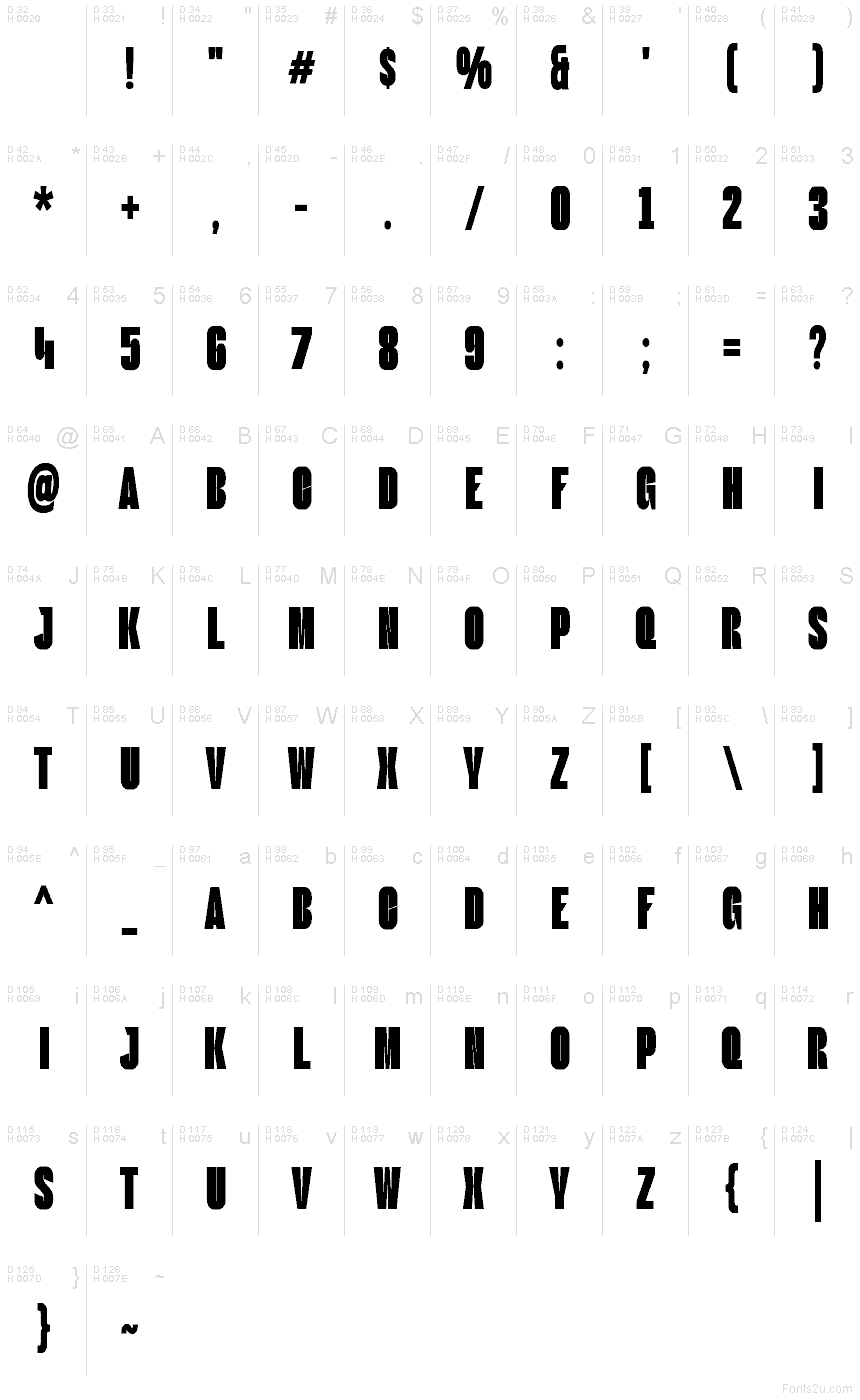
Emerged
Emerged font by Graphicxell is a free ultra-bold condensed sans font. It stands out with deep vertical cuts that slice through its heavy blocks, creating a sharp, industrial rhythm and a punchy cadence across the line. The forms are tightly packed yet readable, with crisp edges and confident mass—like headlines stamped in steel.
Using Emerged, your titles grab attention without shouting; the negative spaces do the talking. This free font shines on posters, sports branding, event flyers, album art, packaging, and bold signage. It also works beautifully in motion graphics where those stencil breaks animate effortlessly. Pair it with a light, neutral sans for body copy and let Emerged carry the impact up top.